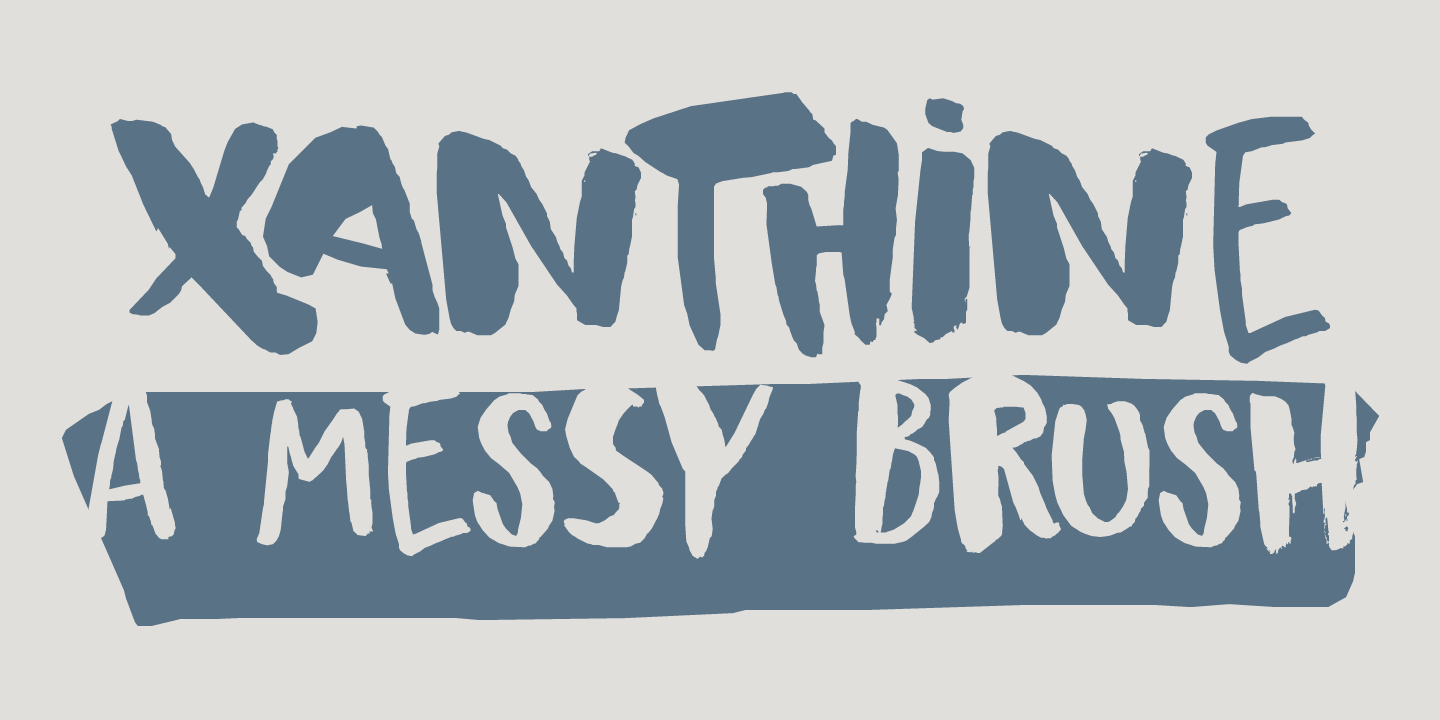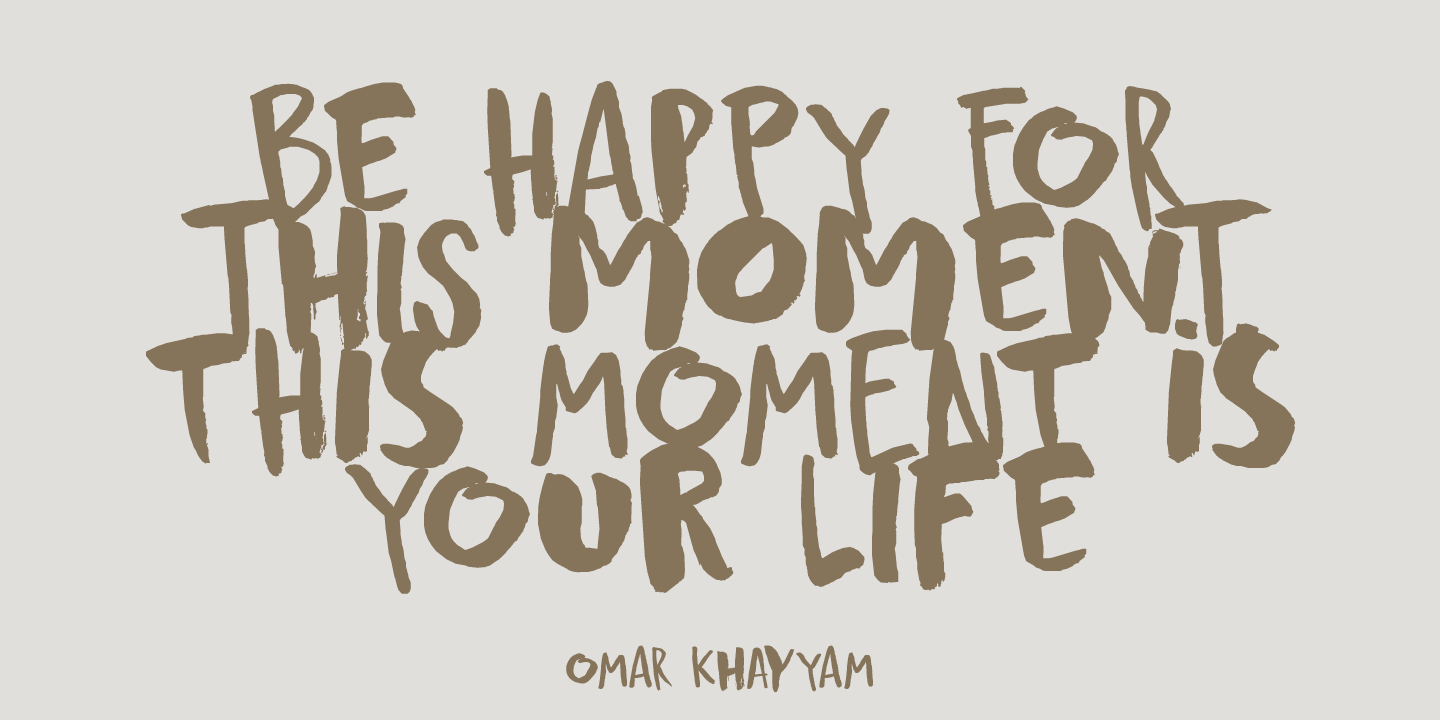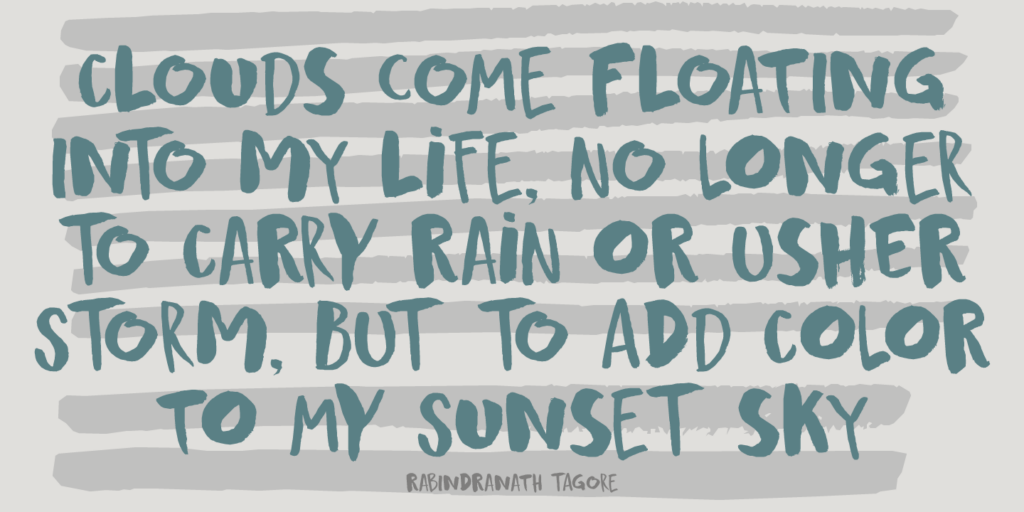
About Xanthine
Xanthine is a purine base found in most human body tissues. Yes, you can forget that. I don\’t even know what it means, but I suddenly realized that I was running low on fonts with an ?x? in the name. Xanthine font is a messy brush: it is all caps, but…